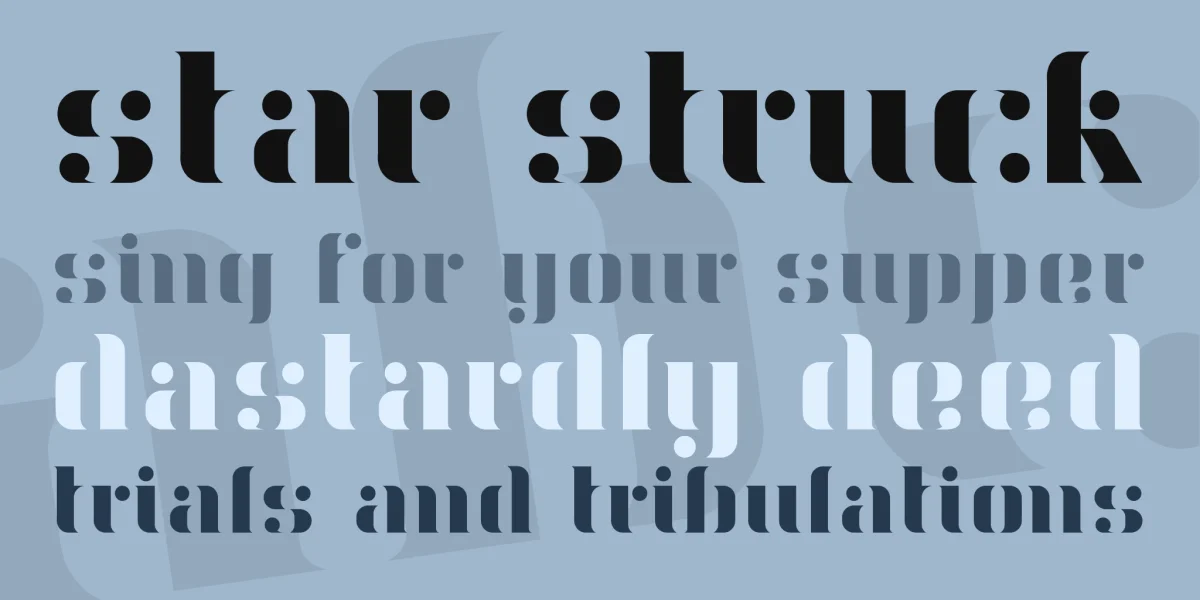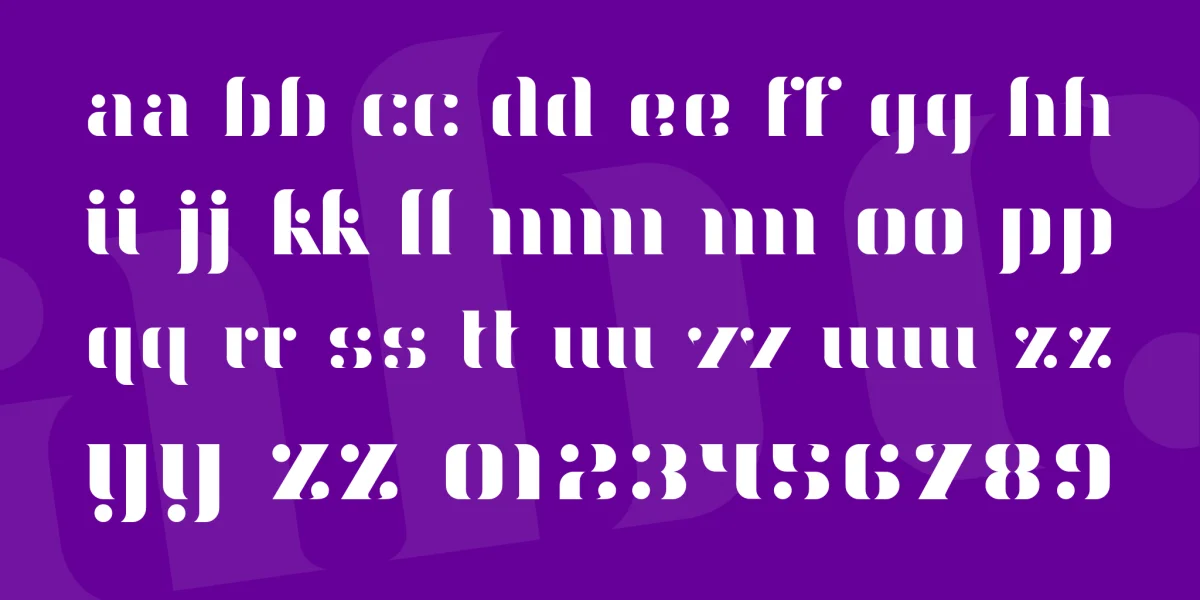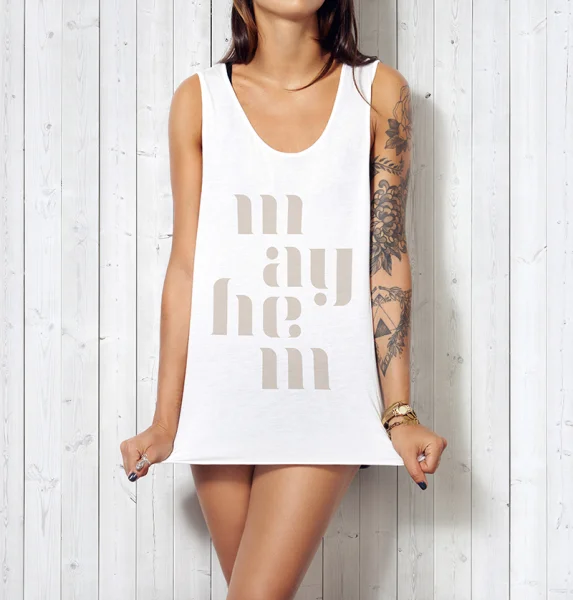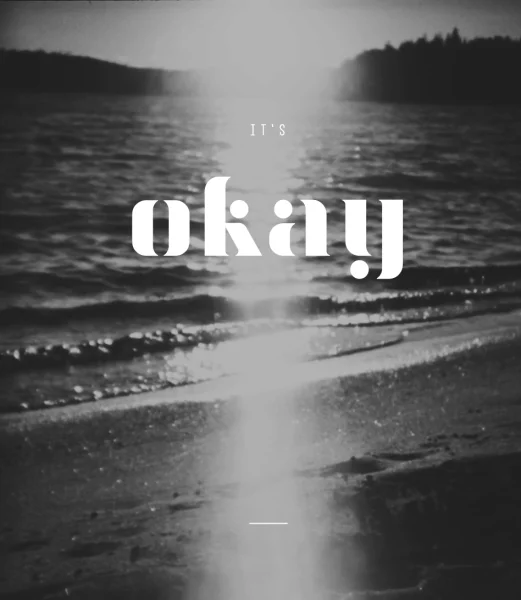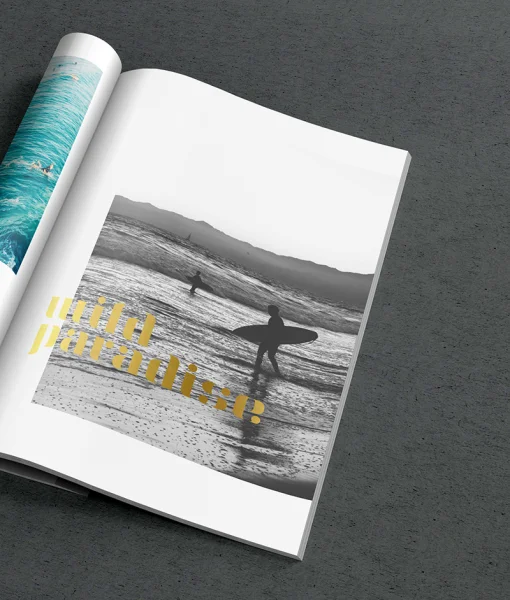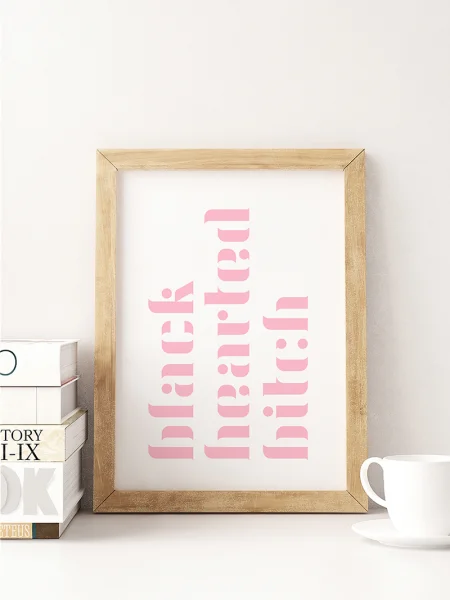
Aery is a free-for-personal-use statement font as bad ass as glamorous. Never sorry, never sore, this font has a heavy load of charm and nothing to prove. To be used wisely.